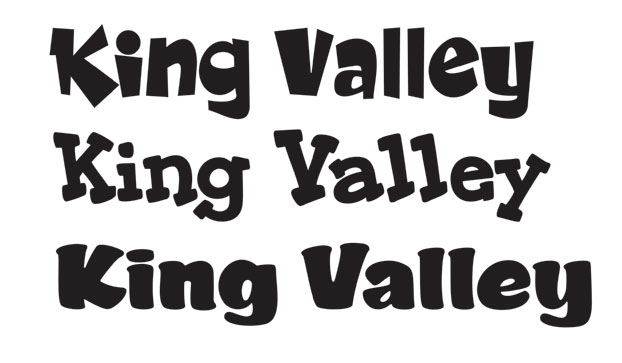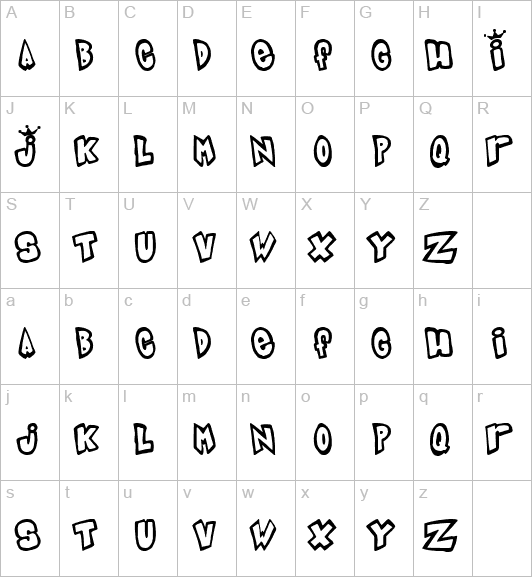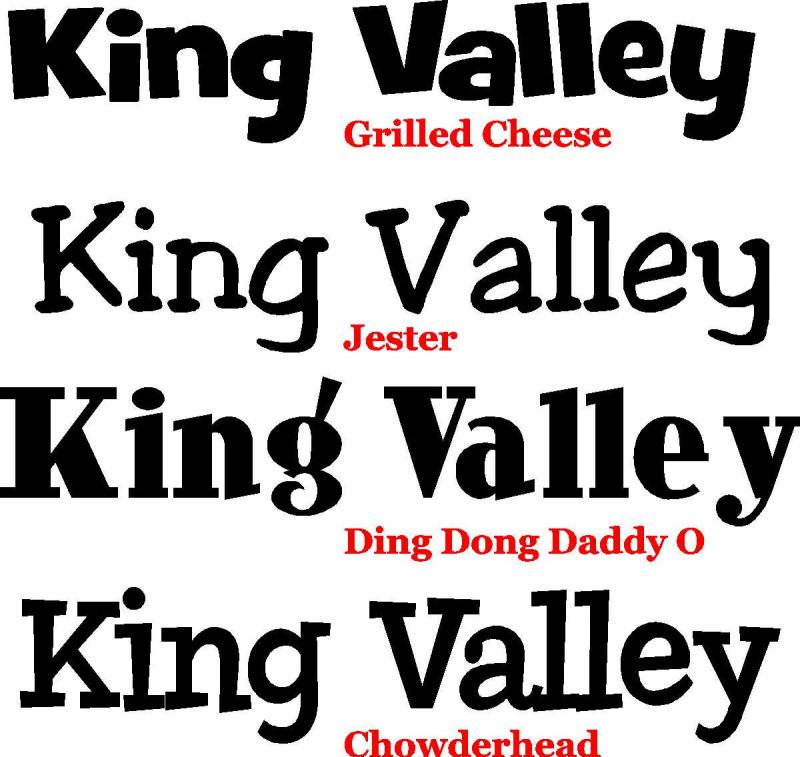
I thought this is a "fun" font
I have a customer that wanted there business name in a fun font with a crown on a letter. So i sent them the attached file and they responded back saying "It looks good but we wanted a fun font. Can you change it to a fun font?". I am most definately not a font guru but i thought this was fun and still professional. Anyone have a suggestion on a font that might look good and be "fun"?
What they are saying is "fun", but what they're thinking is probably not a good idea. Why is it "fun", what are they selling? Is this King Valley toy co., or...
Send them this. It's bad enough to get a reaction that will give you a good indication as to whether or not what they are thinking is even a good idea.
this might scare them enough to like your more professional look. lol
Oogie Boogie!
Puff Daddy and Grilled Cheese are cool!
Thanks everyone! I think a few of those fonts might work. They are a property managment company. I think they would want to protray professional rather than fun but its not my business. I will let you know what one i use and what they say.
Maybe they rent out the Barbie Dream House!
Maybe Badaboom!
There is a fun font called "Indigo Joker" that has the dots of the I's looking like a crown. It may be a free font. I think it's exactly what you're looking for!
Well now they have changed there mind on the type of font they want to use. I guess they did something like what i have attached a few years ago and are thinking about going back to that style. Figures. Anyone have an idea on the font that was use? I really appreciate.